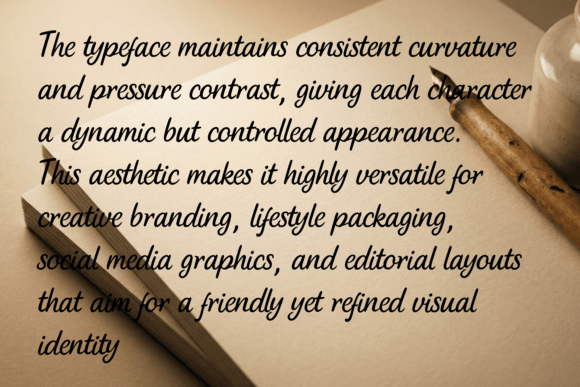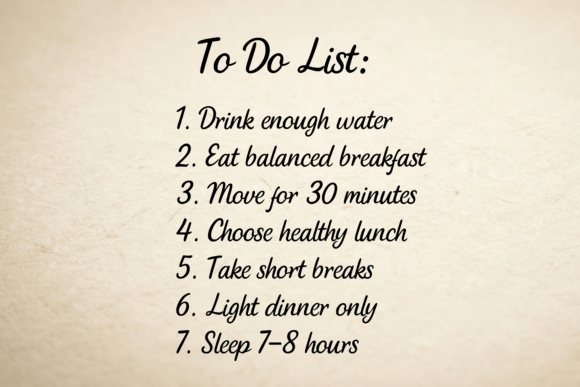
Discover the Elegance of Hand Cukup Letter Sudah Font
In the world of typography, few fonts manage to strike a balance between modern sophistication and the warmth of traditional handwriting. Hand Cukup Letter Sudah is one such exceptional typeface that seamlessly merges these elements, offering a refined and elegant script font perfect for a variety of creative projects. This article will explore the unique characteristics of the Hand Cukup Letter Sudah font, its design features, and the multitude of ways it can be utilized by designers and crafters to add a touch of class and personality to their work.
The Unique Characteristics of Hand Cukup Letter Sudah
Hand Cukup Letter Sudah is a sophisticated, flowing handwritten script typeface that is characterized by its smooth, connected strokes and confident slant. This design imparts a dynamic and personable motion to the font, making it feel both luxurious and approachable. The emphasis on graceful curves and a balanced rhythm ensures that the typeface exudes a sense of elegance and refinement.
Design Features and Elegance
The design of Hand Cukup Letter Sudah focuses on creating a harmonious flow between letters, which results in a visually appealing and cohesive look. The smooth connections and fluid strokes give the font a natural and organic feel, reminiscent of handwriting. The confident slant adds a touch of dynamism and energy, making the font suitable for a wide range of applications, from high-end branding to stylish wedding stationery.
Applications of Hand Cukup Letter Sudah
The versatility of Hand Cukup Letter Sudah makes it an ideal choice for various creative projects. Some of the key applications of this elegant font include:
- Branding High-End Products: The luxurious and refined nature of Hand Cukup Letter Sudah makes it perfect for branding high-end products, where an impression of quality and sophistication is crucial.
- Wedding Stationery: The elegant and personal feel of the font makes it an excellent choice for designing stylish wedding stationery, including invitations, save-the-date cards, and thank-you notes.
- Elegant Logos: For businesses looking to create a logo that conveys elegance, sophistication, and a personal touch, Hand Cukup Letter Sudah is an exceptional choice.
- Social Media Content: Adding a touch of class to social media content is easy with Hand Cukup Letter Sudah. It can be used to create engaging and stylish posts, stories, and captions that stand out.
The Expressive Nature of Hand Cukup Letter Sudah
One of the standout features of Hand Cukup Letter Sudah is its expressive nature. The font is designed to convey personality, emotion, and confident style, making it a versatile tool for creatives. Whether you’re looking to add a touch of whimsy, elegance, or sophistication to your project, Hand Cukup Letter Sudah can adapt to meet your design needs.
To make the most of Hand Cukup Letter Sudah, consider the following tips:
- Pair with Complementary Fonts: For maximum impact, pair Hand Cukup Letter Sudah with complementary fonts that enhance its elegance and sophistication.
- Experiment with Colors: Don’t be afraid to experiment with different colors to find the perfect match for your design. Hand Cukup Letter Sudah looks stunning in a variety of colors, from classic black and white to bold and bright hues.
- Pay Attention to Spacing: To maintain the elegant flow of the font, pay attention to spacing and kerning. Proper spacing ensures that the connected strokes and graceful curves of Hand Cukup Letter Sudah are showcased to their fullest potential.
| Font Name | Hand Cukup Letter Sudah Font |
| Author | Font Seven |
Hand Cukup Letter Sudah is a remarkable typeface that brings a perfect blend of modern elegance and traditional warmth to any creative project. Its smooth, connected strokes, confident slant, and balanced rhythm make it an exceptional choice for designers and crafters looking to add a touch of class and personality to their work. Whether you’re branding high-end products, designing stylish wedding stationery, creating elegant logos, or personalizing social media content, Hand Cukup Letter Sudah is a versatile and sophisticated tool that is sure to impress.